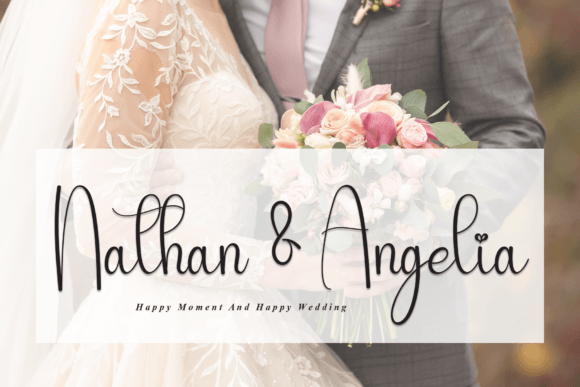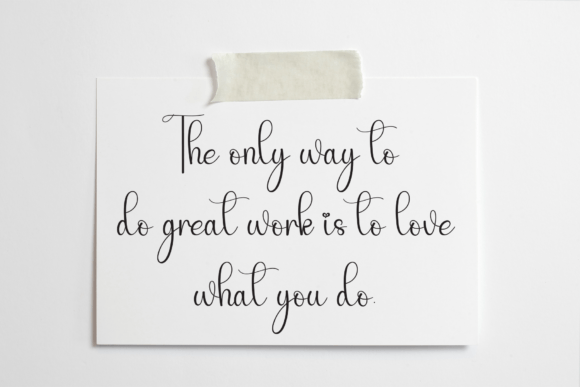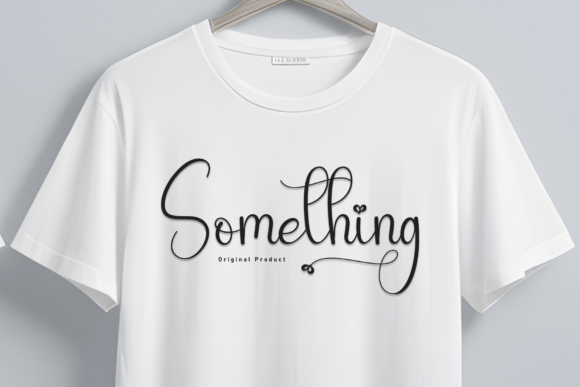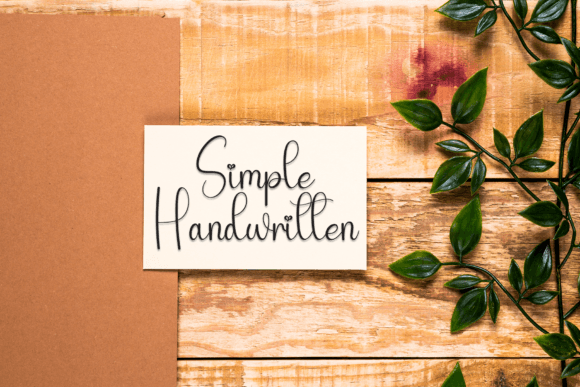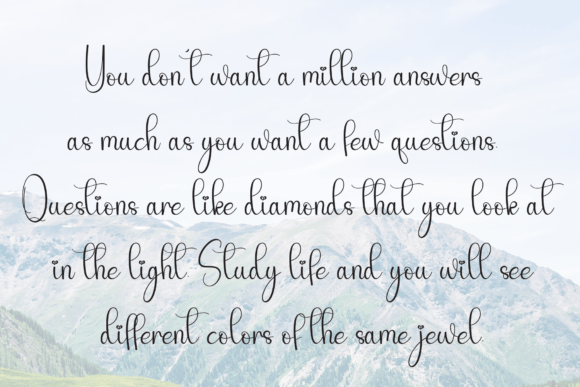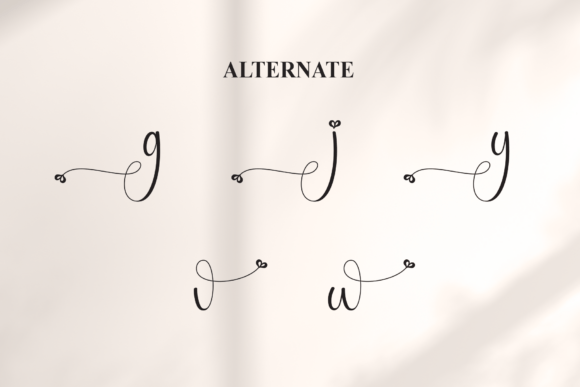
The Delightful Charm of Always Font: A Designer’s New Best Friend
I’ll never forget the time I was working on a wedding invitation project, and my client asked for a font that would make their guests feel like they’re receiving a handwritten note from a dear friend. I scoured the internet, tried out countless fonts, but nothing seemed quite right. That was until I stumbled upon Always Font, aptly described as “Sweet and Friendly”. It’s been a game-changer for me ever since, and I’m excited to share its charm with you! ✨
I’ve had the pleasure of working with Always Font on several projects, and here’s what I think:
- ✅ It’s incredibly versatile and can be used for a wide range of creative projects, from wedding invitations to greeting cards, and even social media graphics.
- ✨ The handwritten feel is warm, playful, and endearing, making it perfect for designs that require a personal touch.
- ✅ The font comes with a range of OpenType features, including stylistic alternates and glyphs, which allow for endless customization options.
As for quirks, I’ve noticed a few:
- ⚠️ Some of the letters may appear a tad too curly or playful for very formal designs. However, this is also part of its charm! 🤔
- ⚠️ If you’re planning to use it for body text, be aware that it might be a bit too ornate for long paragraphs. It’s best suited for headings, titles, or short messages.
The Story Behind Always Font
Always Font was designed with the intention of capturing the warmth and playfulness of handwritten notes. Its creator, a talented type designer, aimed to craft a font that would make digital designs feel more personal and endearing. The result is a font that beautifully balances elegance and whimsy, making it perfect for a wide range of creative projects.
| Is Always Font suitable for body text? | While Always Font is primarily designed for headings and titles, it can be used for short paragraphs or body text. However, keep in mind that its playful, handwritten feel might not be suitable for very long texts. |
With Always Font, you’ll be able to add a dash of warmth and playfulness to your designs. Its versatility, paired with its delightful charm, makes it an excellent addition to any designer’s font library. So go ahead, give it a try, and see how it can elevate your creative projects! 🎉